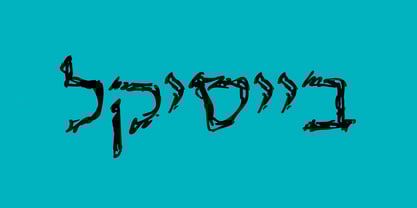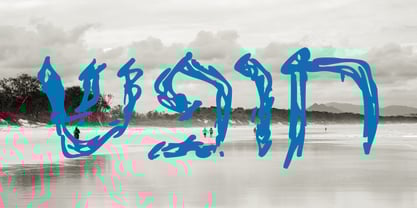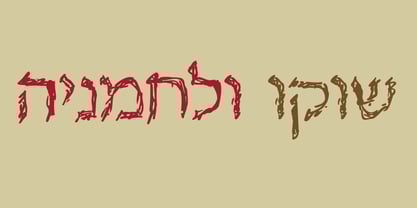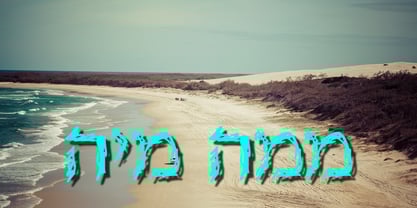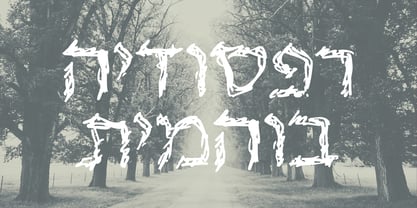
Andrelamusia MF
by Masterfont
The Andrelamusia MF Font Family was designed by Omer Peleg and published by Masterfont. Andrelamusia MF contains 1 styles. More about this family
This calligraphic scribble follows the traditional Hebrew type by intensive and free hand drawn lines.